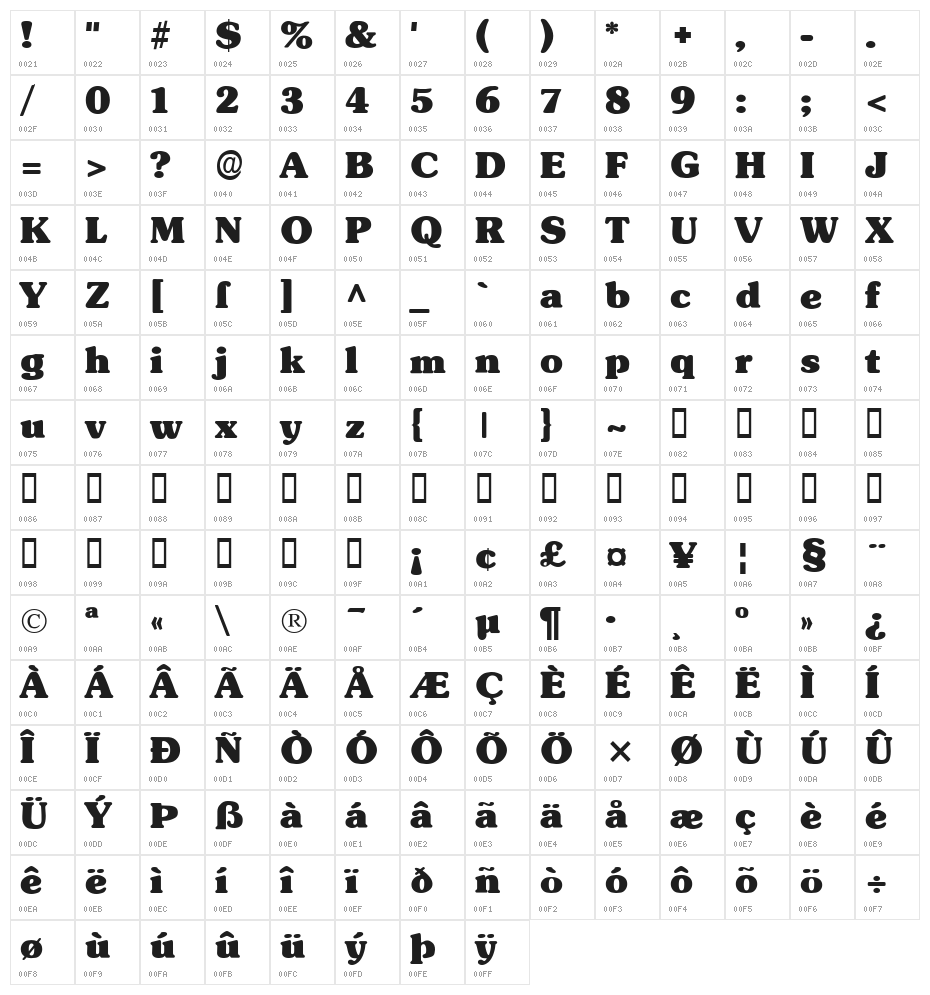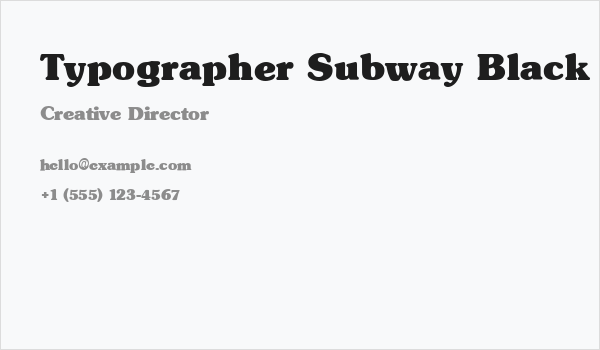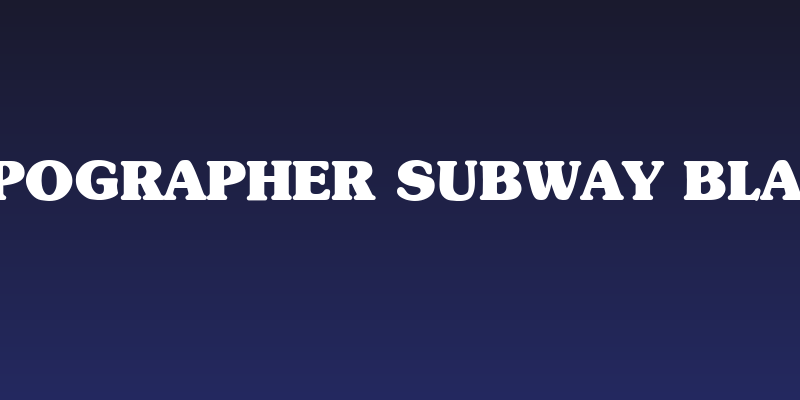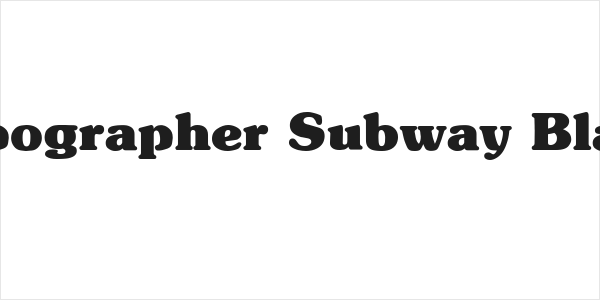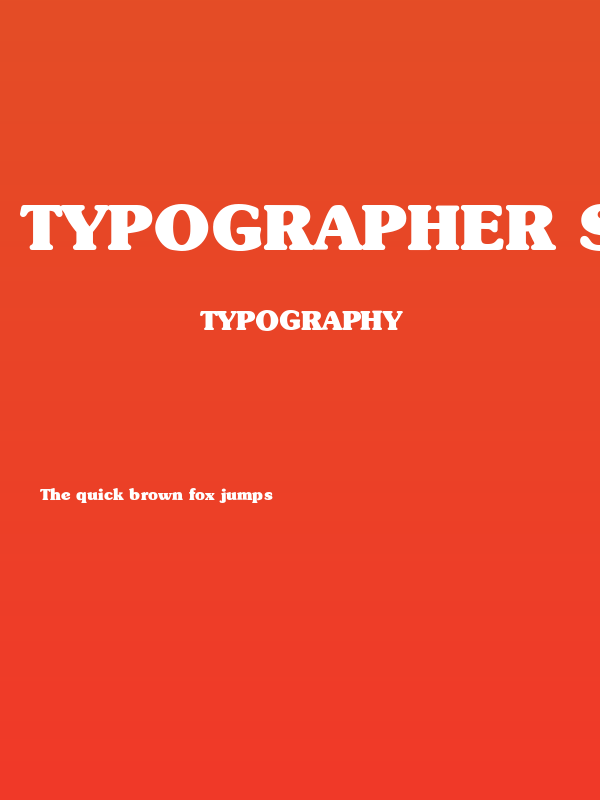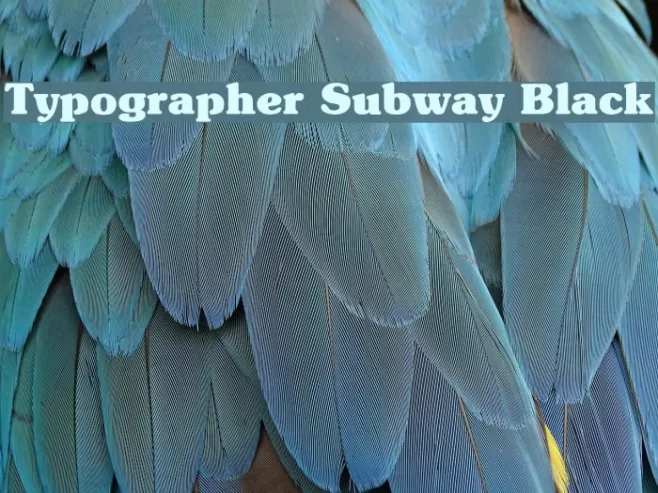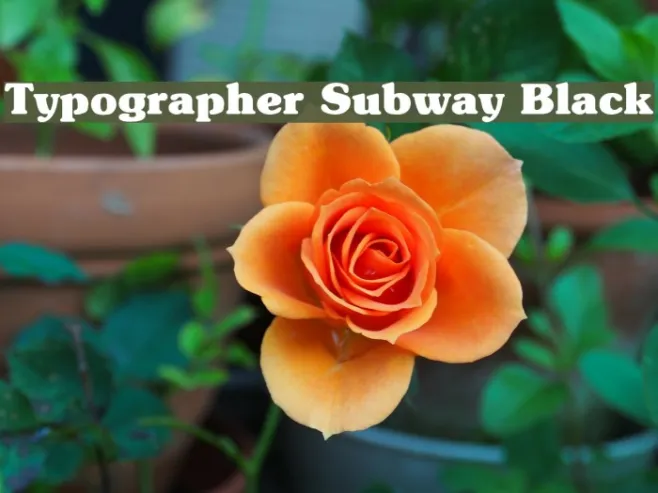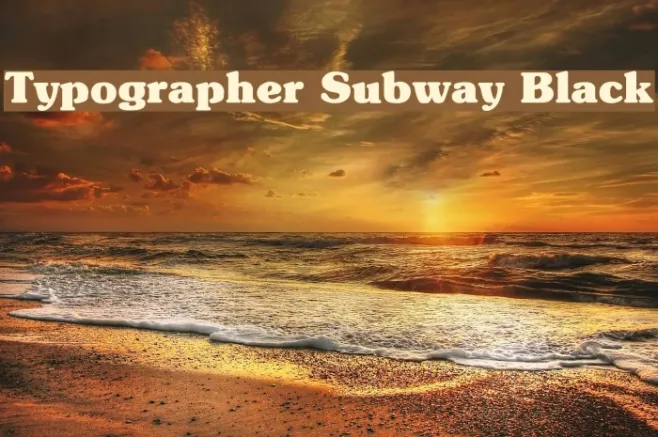
Typographer Subway Black Font
Typographer Subway Black Description
This bold and impactful font features thick, heavy strokes that convey a sense of strength and authority. The characters are well-defined with a strong presence, making them ideal for grabbing attention. The uppercase letters are particularly striking, with a uniform height and width that create a cohesive look. The lowercase letters maintain the same boldness, ensuring readability and consistency across different text sizes. The numerals are equally robust, matching the overall style of the alphabet. Special characters are included, designed to complement the bold aesthetic. This font is perfect for projects that require a strong visual impact.
| Proposed Projects | Ideal for headlines, posters, branding, and any design requiring a bold statement. |